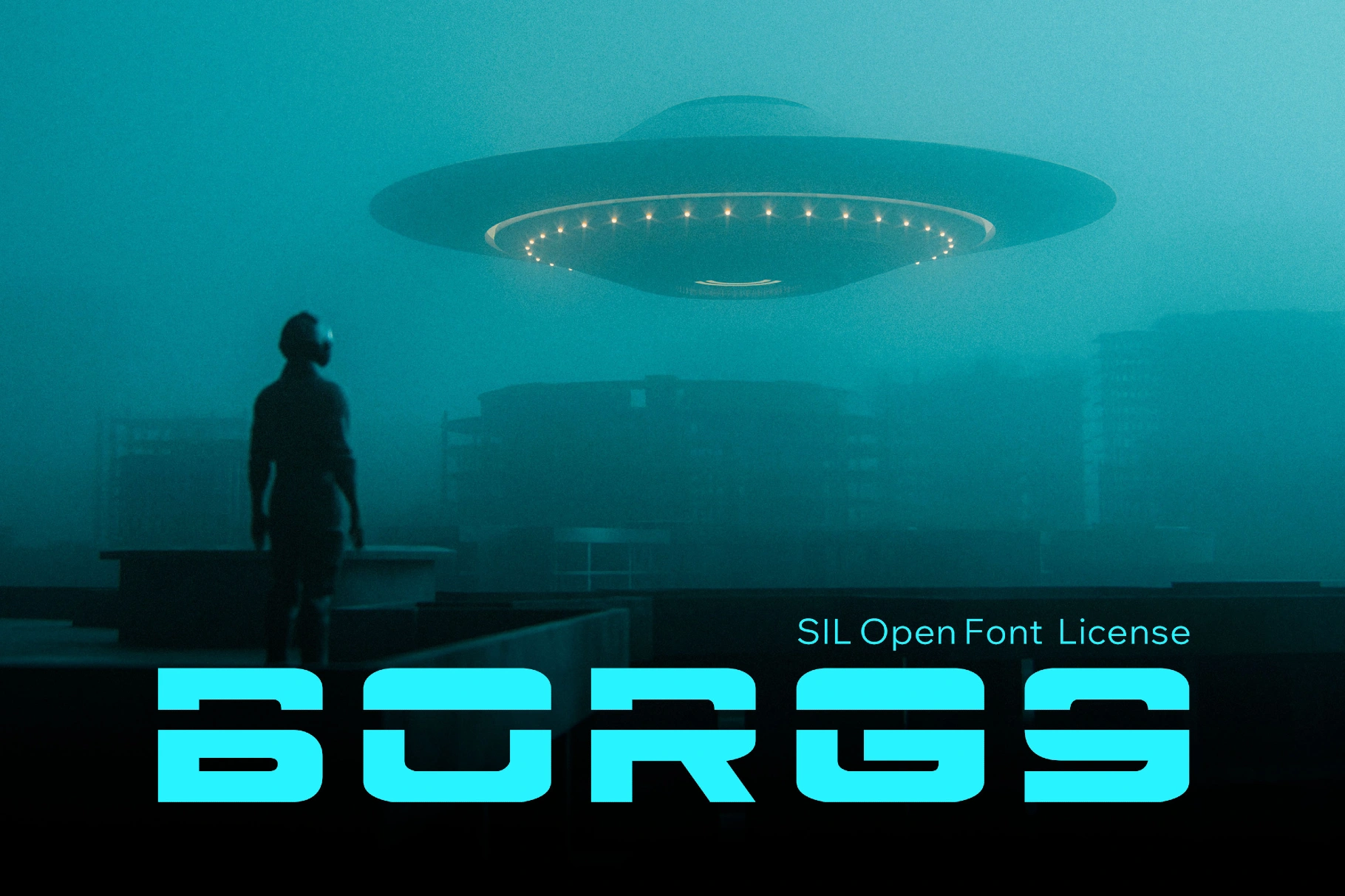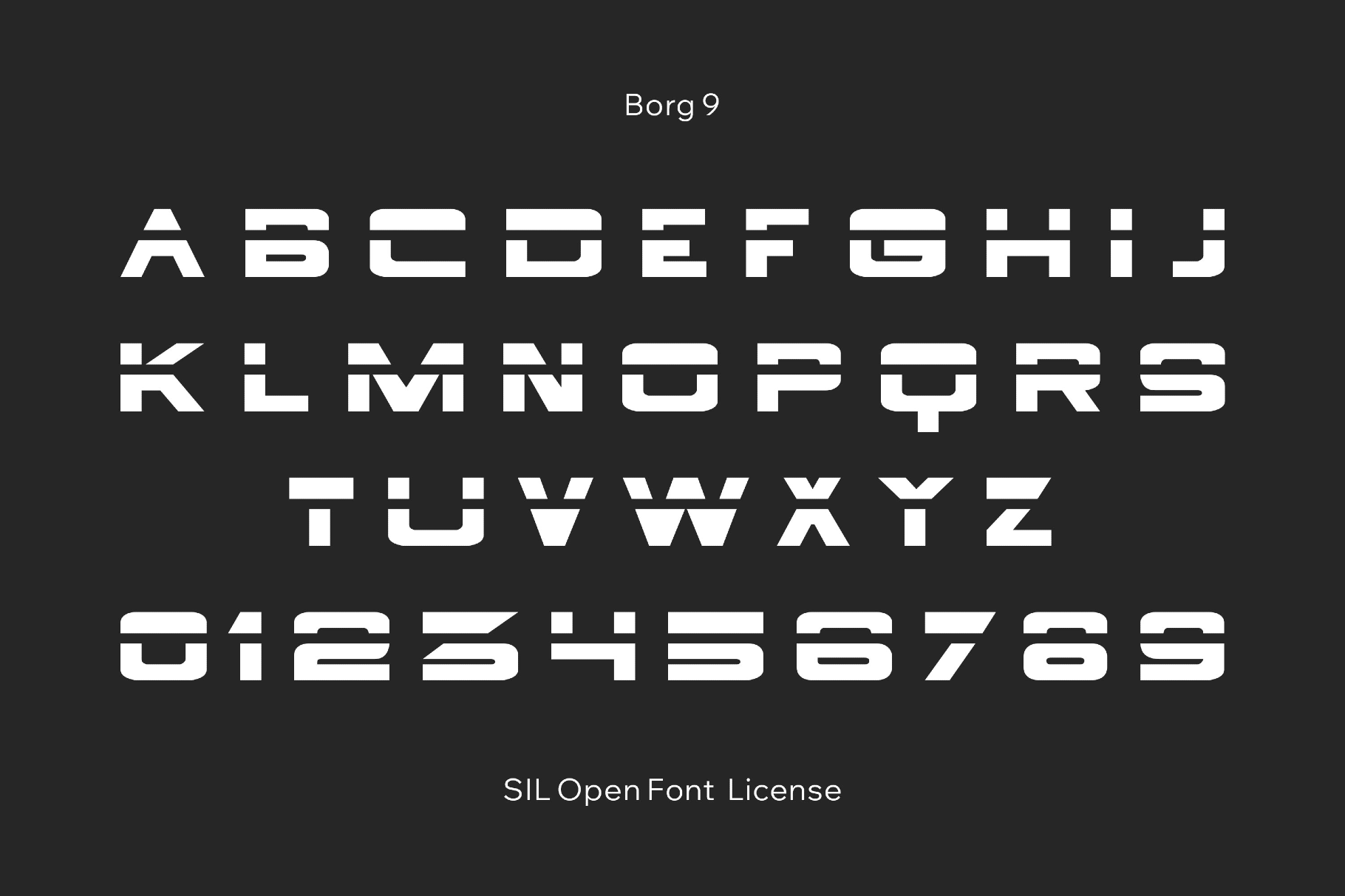
Borg 9 - 80s Tech Font
Borg 9
Borg 9 has the clipped authority of 1980s action-sci-fi graphics and military-tech decals, with squared forms that recall fictional helicopter markings, VHS-era control panels, and hard-surface industrial branding.